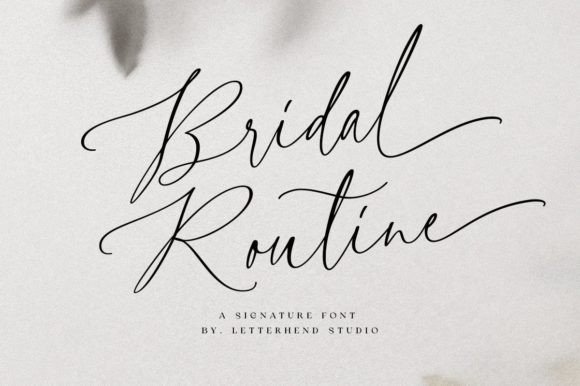
Introducing Bridal Routine Font, the ultimate choice for adding elegance and sophistication to your projects! Developed by the talented designers at letterhend, this beautiful signature script font brings the art of manual handwriting to life.
With its stylish alternates, ligatures, and delicate tick and thin strokes, Bridal Routine Font effortlessly mimics the fluidity and authenticity of real handwriting. Each character is crafted with meticulous detail, creating a truly captivating and unique typeface.
Are you searching for the perfect font to elevate your brand's identity? Look no further! Bridal Routine Font is an ideal choice for logos and formal forms such as invitations, labels, magazines, books, greeting and wedding cards, packaging, fashion, make-up, stationery, novels, labels, and any type of advertising purpose you can imagine.
What sets Bridal Routine Font apart is its versatility and adaptability. Whether you're aiming for a classy, timeless look or a modern and chic vibe, this font effortlessly caters to your desired aesthetic. Its graceful curves and elegant strokes exude professionalism and sophistication, leaving a lasting impression on your audience.
But that's not all - Bridal Routine Font offers even more convenience and accessibility. Thanks to its PUA encoding, accessing all the remarkable glyphs and swashes is a breeze! Unlock a treasure trove of decorative elements that will take your designs to the next level.
Imagine the impact of a beautifully crafted signature font on your personal or professional projects. Bridal Routine Font adds a touch of elegance and refinement that is unparalleled. Whether you're a designer, a business owner, or a creative enthusiast, this font will become an invaluable asset in your toolkit.
Indulge your creative spirit and immerse yourself in the world of Bridal Routine Font. Transform your designs into masterpieces that resonate with your audience on a deep and emotional level. Let your words flow effortlessly, reflecting the essence of your brand and captivating your viewers.